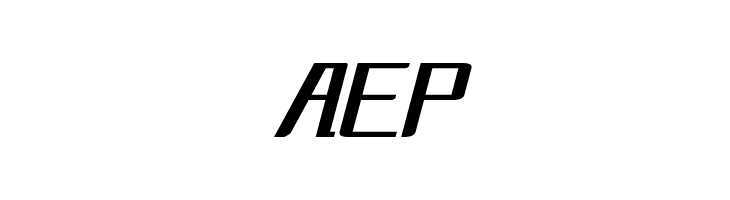
A bold, rounded font with a playful, retro 1990s aesthetic.
A bold, futuristic font with geometric and angular letterforms.
A bold, futuristic font with geometric and angular design.
A bold, italic, futuristic font with sharp, angular lines.
An elegant, high-contrast script font with flowing, interconnected letters.
A bold serif font with high contrast and a classic yet modern style.
A classic serif font with elegant curves and a calligraphic touch.
A semi-bold serif font with elegant curves and classic style.
A modern, geometric sans-serif font with clean lines and uniform width.
A modern, geometric font with uniform line thickness and rounded edges.
A flowing, cursive font with interconnected characters and elegant style.
A bold, modern font with thick strokes and a strong presence.
A bold, oblique font with a modern and assertive style.
A modern, oblique sans-serif font with a sleek and dynamic appearance.
A modern, geometric sans-serif font with clean lines and balanced spacing.
A decorative and modern font with elegant swirls and clean lines.
A modern, flowing cursive font with an elegant italic style.
A cursive, elegant font with a slight slant and consistent flow.
A flowing, cursive script font with elegant, interconnected strokes.
A decorative, striped font with a dynamic and textured appearance.
A decorative font with striped patterns, offering a playful and dynamic look.
An elegant and intricate script font with flowing, interconnected letters and elaborate swashes.
A bold, playful font with rounded edges and a modern, energetic style.
A bold, decorative font with playful, exaggerated curves and loops.
An elegant, high-contrast script font with flowing, ornate letterforms.
A flowing, cursive script font with elegant, interconnected letters.
A dynamic and elegant script font with flowing, sophisticated strokes.
A modern, geometric sans-serif font with clean lines and a slightly condensed style.
A casual, handwritten font with a smooth, flowing style.
A casual, handwritten font with smooth, flowing curves and a natural, organic feel.